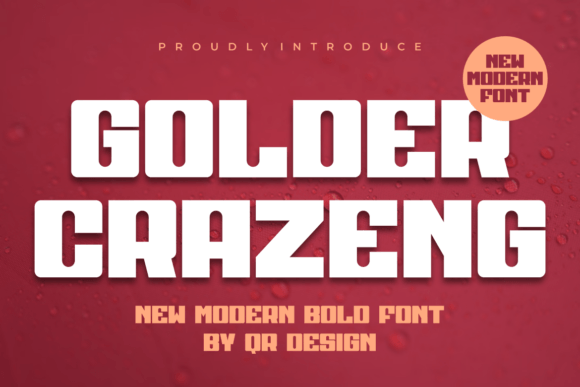
Introducing Golder Crazeng Font, the ultimate choice for all your title poster needs! This modern and robust sans serif font is here to revolutionize the way you create captivating designs. Developed by qrdesignstd, Golder Crazeng Font is a powerful tool that will elevate your artwork to new heights.
With its sleek and contemporary design, Golder Crazeng Font adds a touch of sophistication to any project. Whether you're designing posters, social media posts, stickers, apparel, or packaging, this font is guaranteed to make your creations stand out from the crowd.
Let your imagination run wild as you explore the endless possibilities that Golder Crazeng Font offers. Its versatility allows you to effortlessly adapt it to any style or theme, making it suitable for a wide range of creative projects. From bold and impactful titles to elegant and refined text, this font has got you covered.
But what truly sets Golder Crazeng Font apart is the emotional impact it brings to your designs. With its captivating presence, it instantly grabs attention and engages viewers on a deeper level. Prepare to leave a lasting impression and evoke powerful emotions with every stroke of this font.
Not only does Golder Crazeng Font deliver stunning visuals, but it also caters to the practical needs of designers. Its user-friendly nature ensures a seamless experience, allowing you to focus on your creative process without any hindrance. With its easy-to-read characters and flawless spacing, you can effortlessly convey your message to your audience.
But don't just take our word for it. Experience the magic of Golder Crazeng Font for yourself and witness the transformation it brings to your designs. Unlock a world of possibilities and watch as your artwork comes to life with this extraordinary font at your disposal.